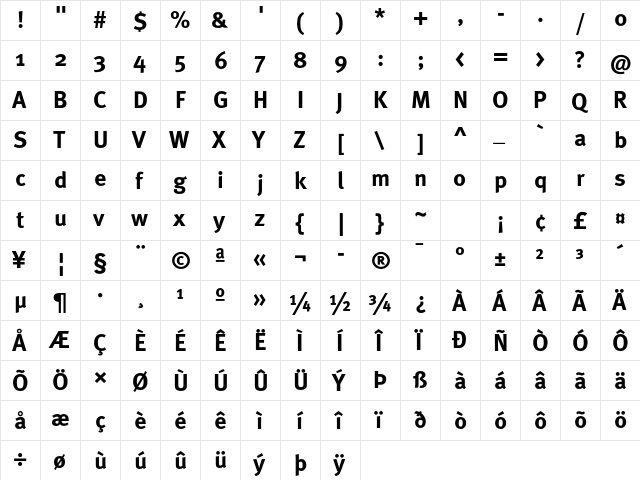
MetaPro-Bold Regular
| Foundry | FSI Fonts und Software GmbH |
| Designer | Erik Spiekermann |
Design Context for MetaPro-Bold Typeface
MetaPro-Bold is a composed and adaptable typeface that performs quietly and consistently across a wide range of design contexts. Its bold stroke weight gives it real presence on the page.